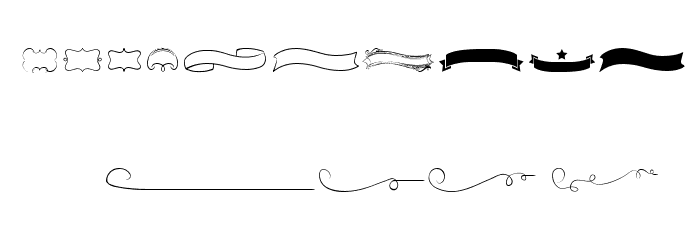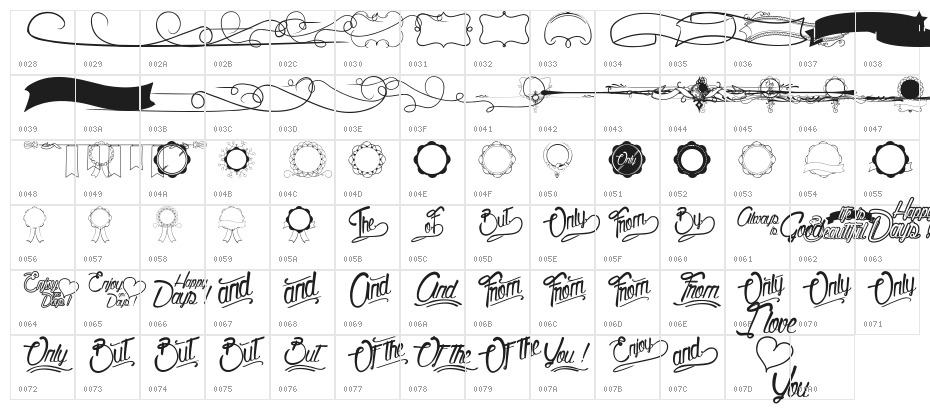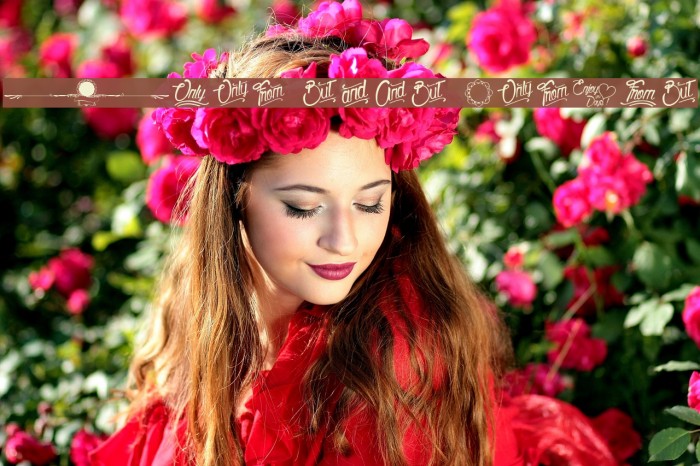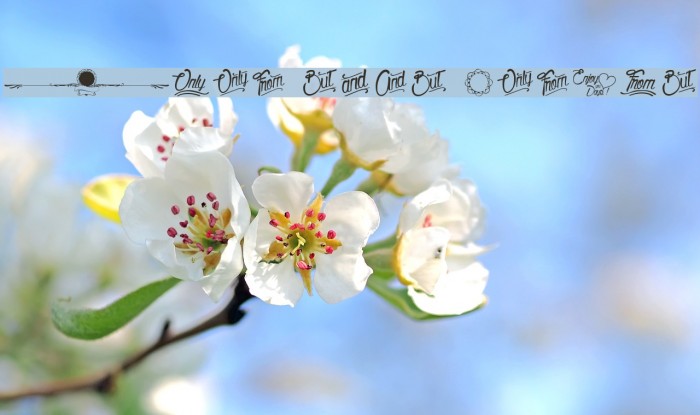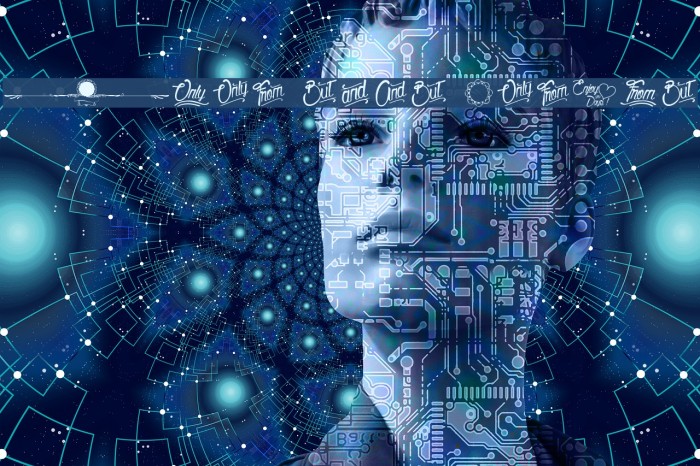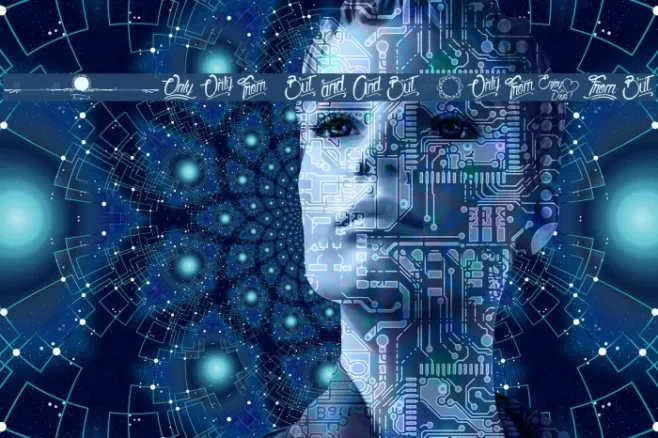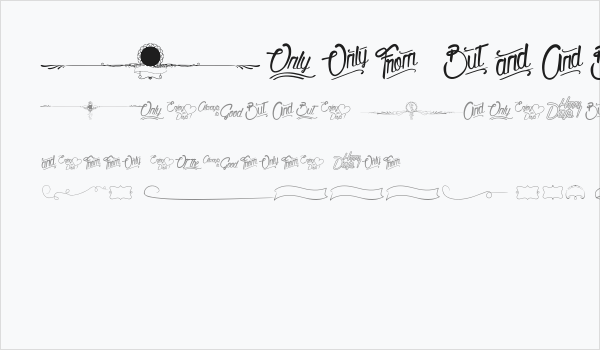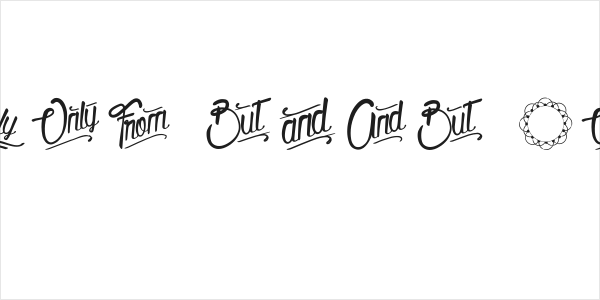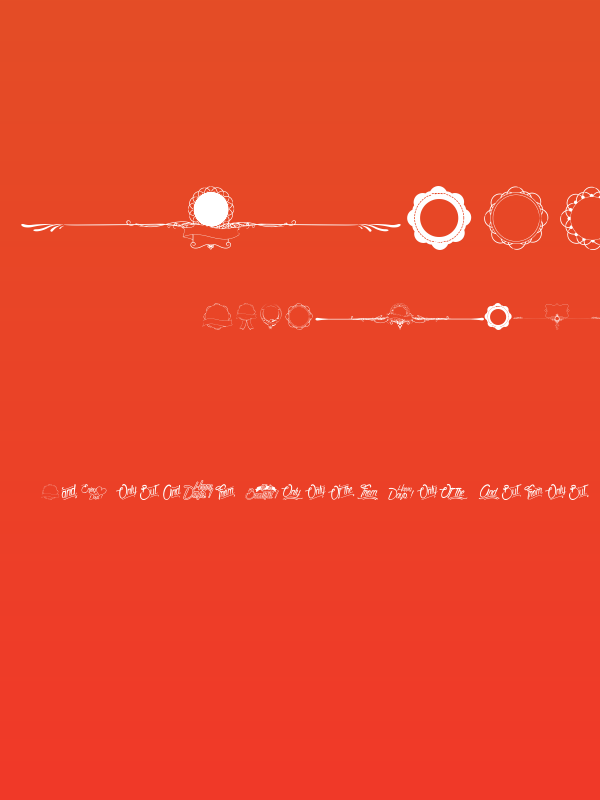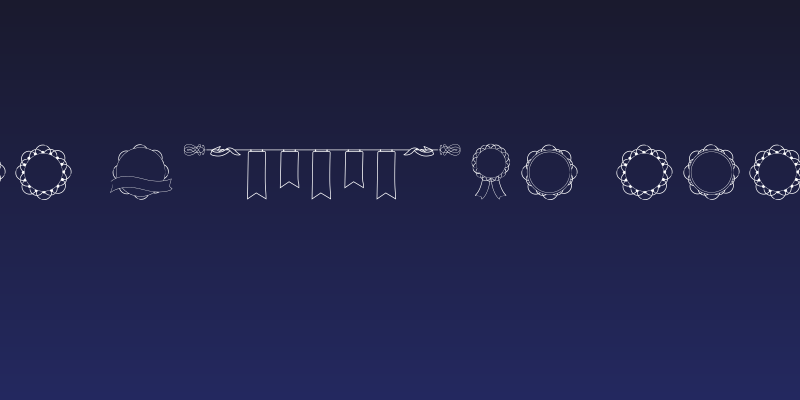
From this Moment Font
From this Moment Description
This decorative font features an elegant and ornate style, characterized by its intricate swirls and embellishments. The letters are designed with a calligraphic flair, giving them a handwritten appearance. The font includes a variety of decorative elements such as flourishes and frames, which enhance its artistic appeal. The overall design is reminiscent of vintage or classical typography, making it suitable for projects that require a touch of sophistication and elegance. The font's unique style is ideal for creating eye-catching headlines, invitations, or branding materials that aim to convey a sense of luxury and refinement.
| Use Case | Headlines, Invitations, Branding |
| Proposed Projects | Ideal for wedding invitations, luxury branding, elegant posters, and decorative signage. |